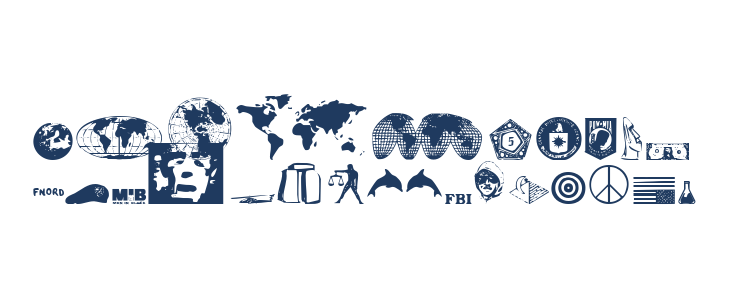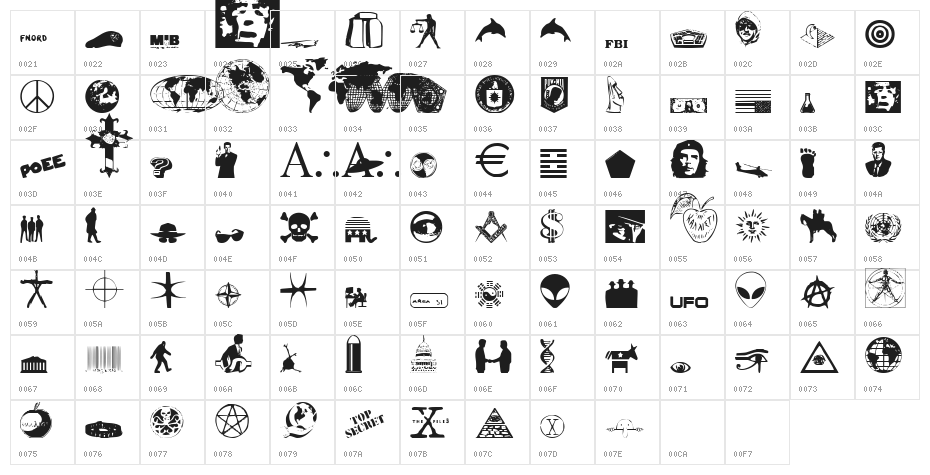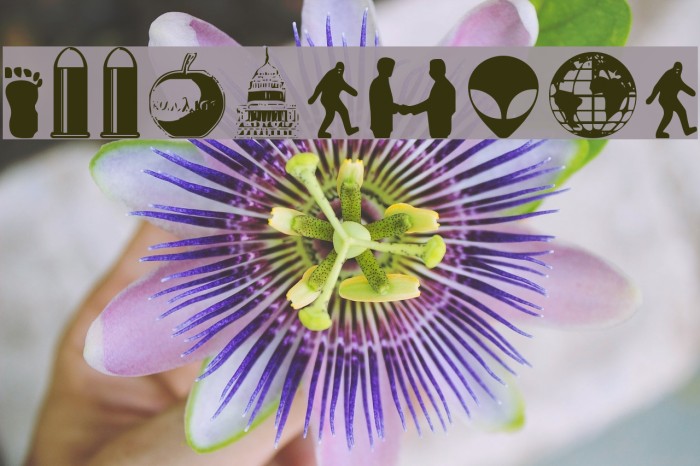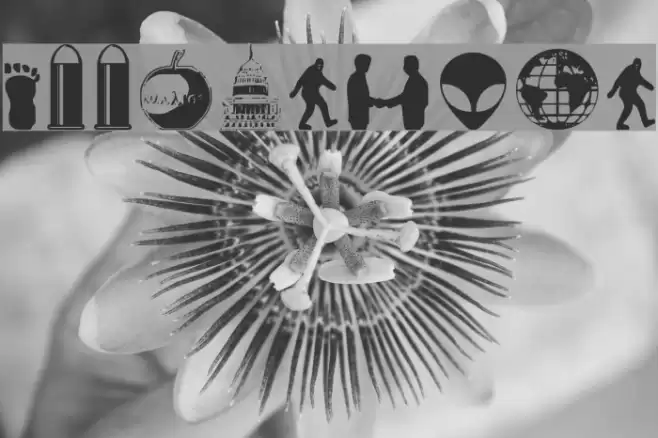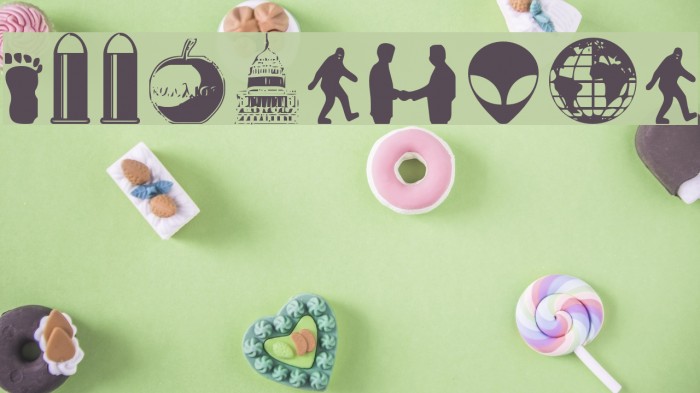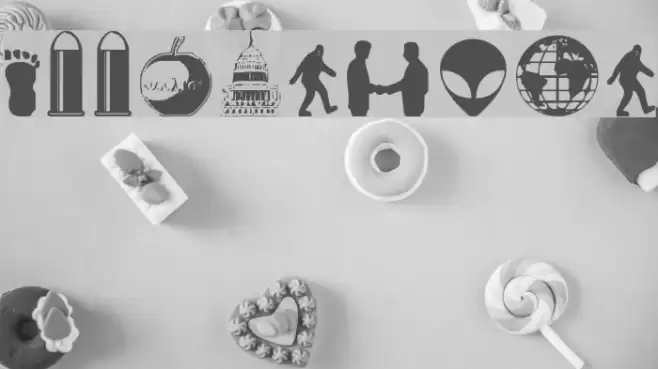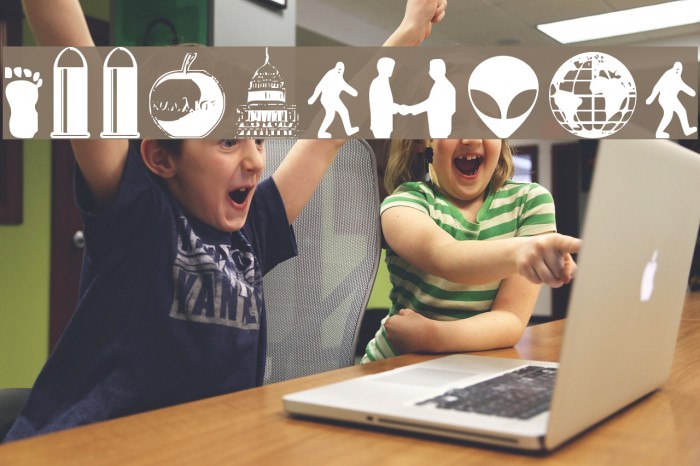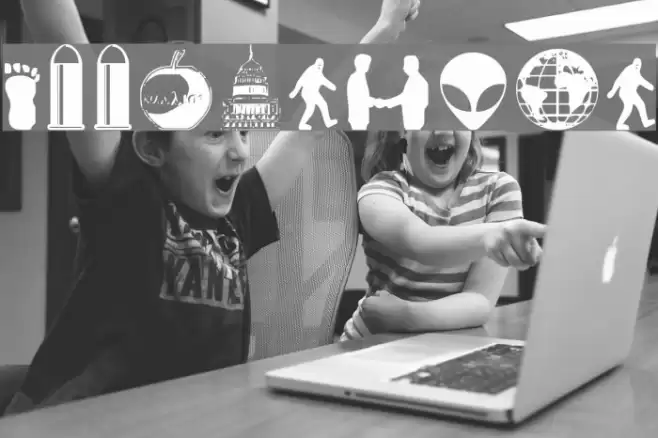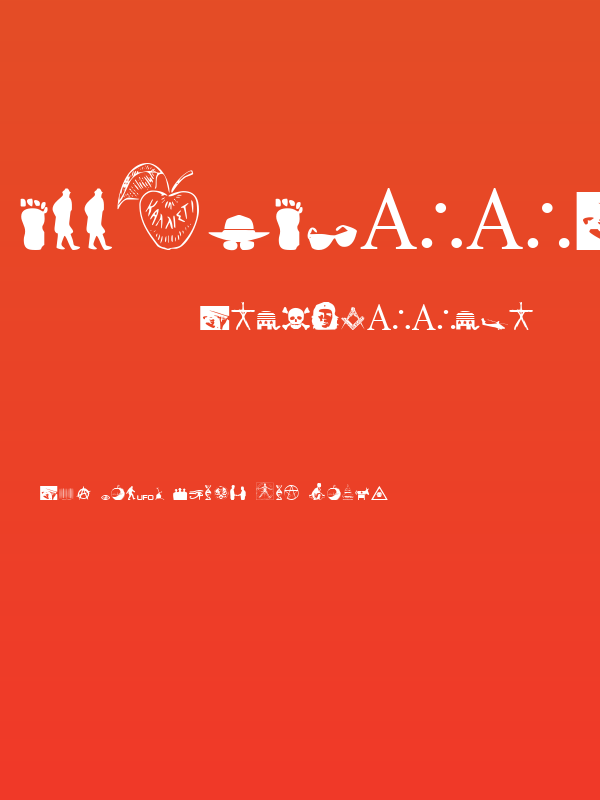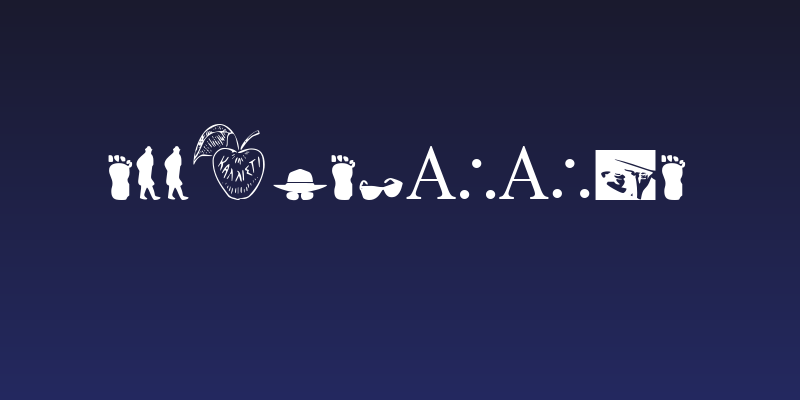
Illuminati Font
Illuminati Description
A highly decorative and symbolic dingbat font featuring a wide array of conspiracy, secret society, and pop culture icons, including aliens, pyramids, eyes, world maps, government symbols, and various cryptic imagery. The glyphs are bold, high-contrast, and primarily black silhouettes with some outlined elements, designed for visual impact rather than textual readability.
| Overall Style | Decorative, Thematic, Iconic |
| Use Case | Logos, Posters, Themed Graphics, Visual Accents |
| Proposed Projects | Posters, flyers, album covers, themed party invitations, zines, digital art, and any project requiring mysterious or conspiratorial visual motifs. |